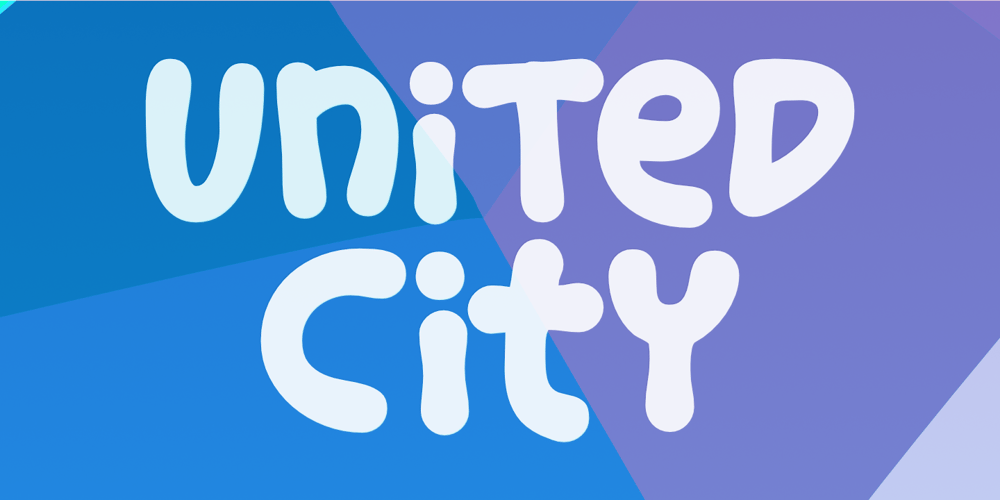
United City Font Family was designed by Aldy Sidik and published by Epiclinez. United City contains 1 styles and family package options. Introducing United City, a font that’s so bold and playful, that it practically jumps off the page and throws a party! If you’re tired of fonts that look like they’ve just woken up from a nap, it’s time to unleash some character in your headlines, logotypes, and product packaging. With its quirky curves and eye-catching flair, United City ensures that your message doesn’t just speak—it sings karaoke in neon lights!United City features :- Standard Latin- Numbers, symbols, and punctuations- Multilingual Support.- Fully accessible without additional design software- Simple Installations- Works on PC & MacThank You.